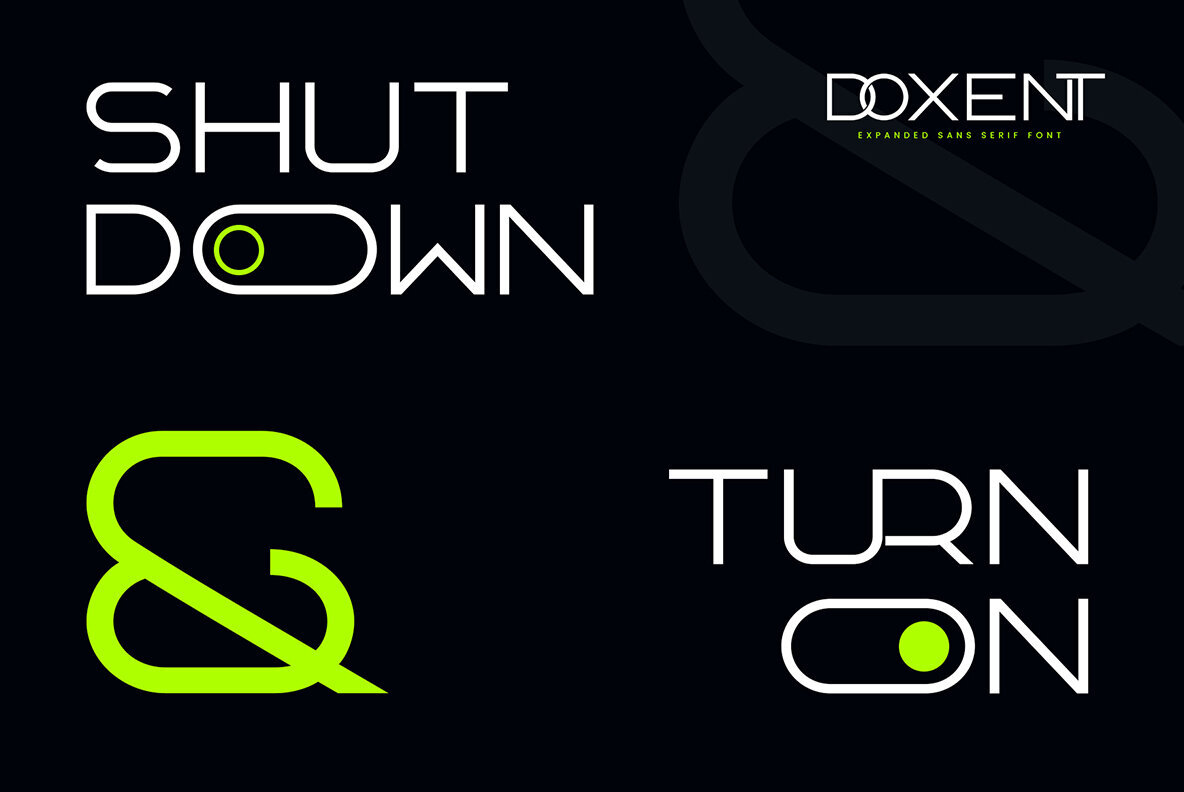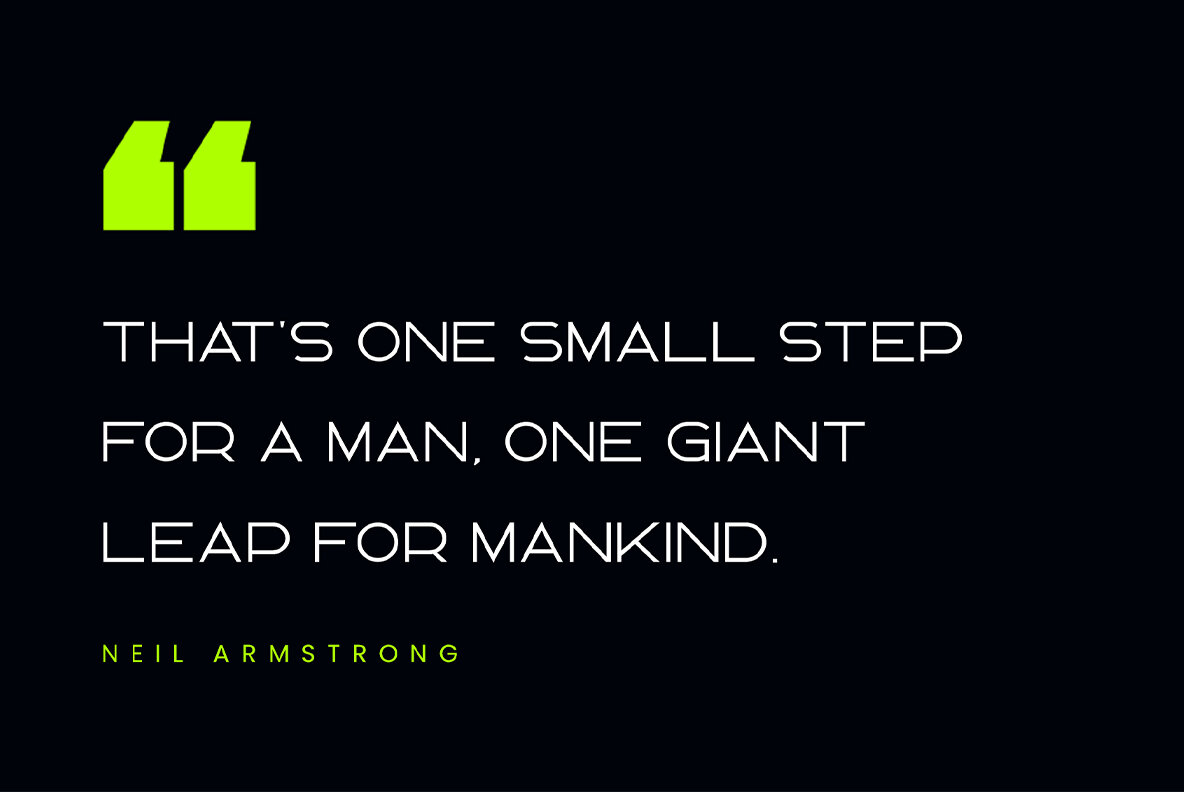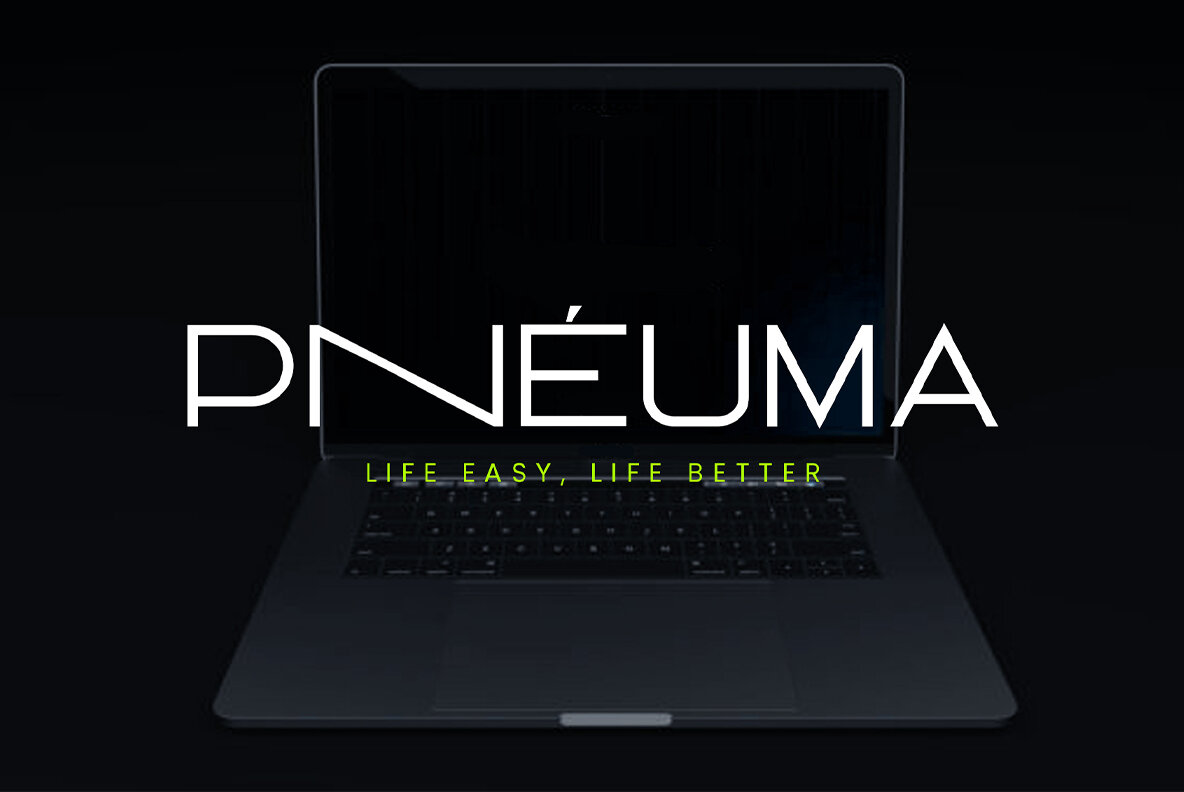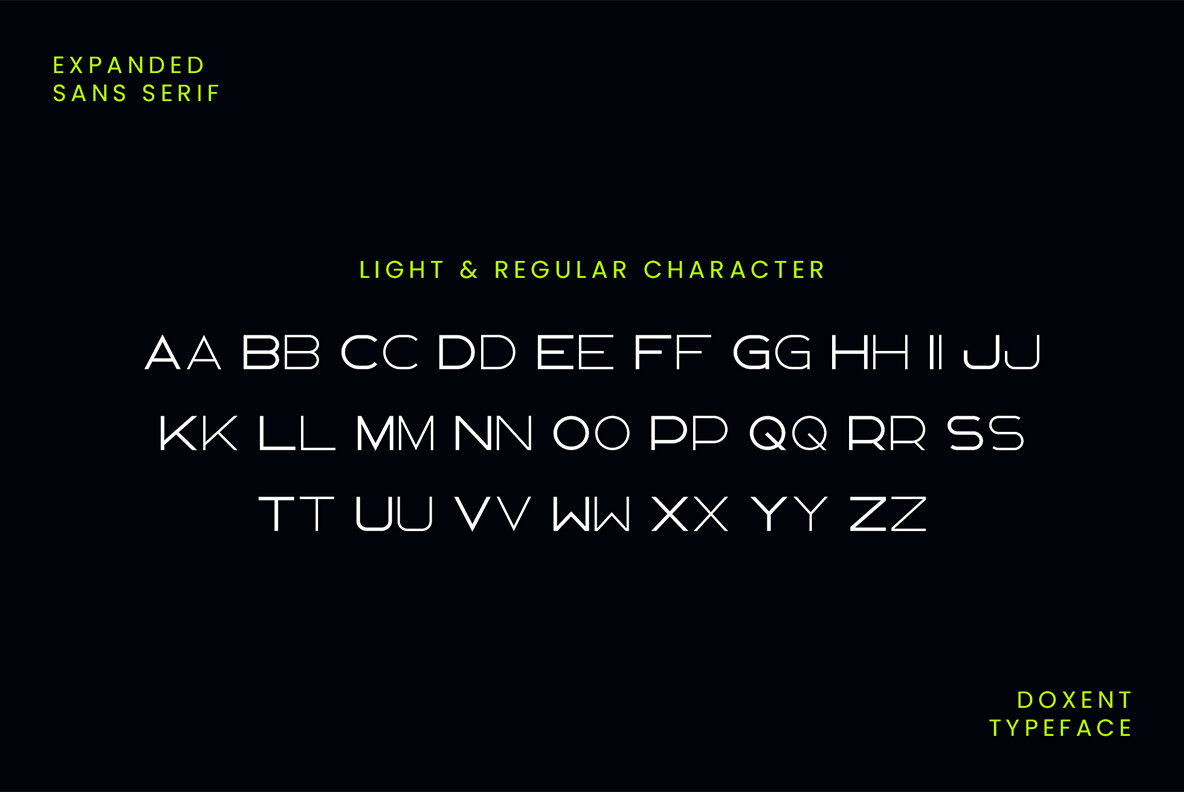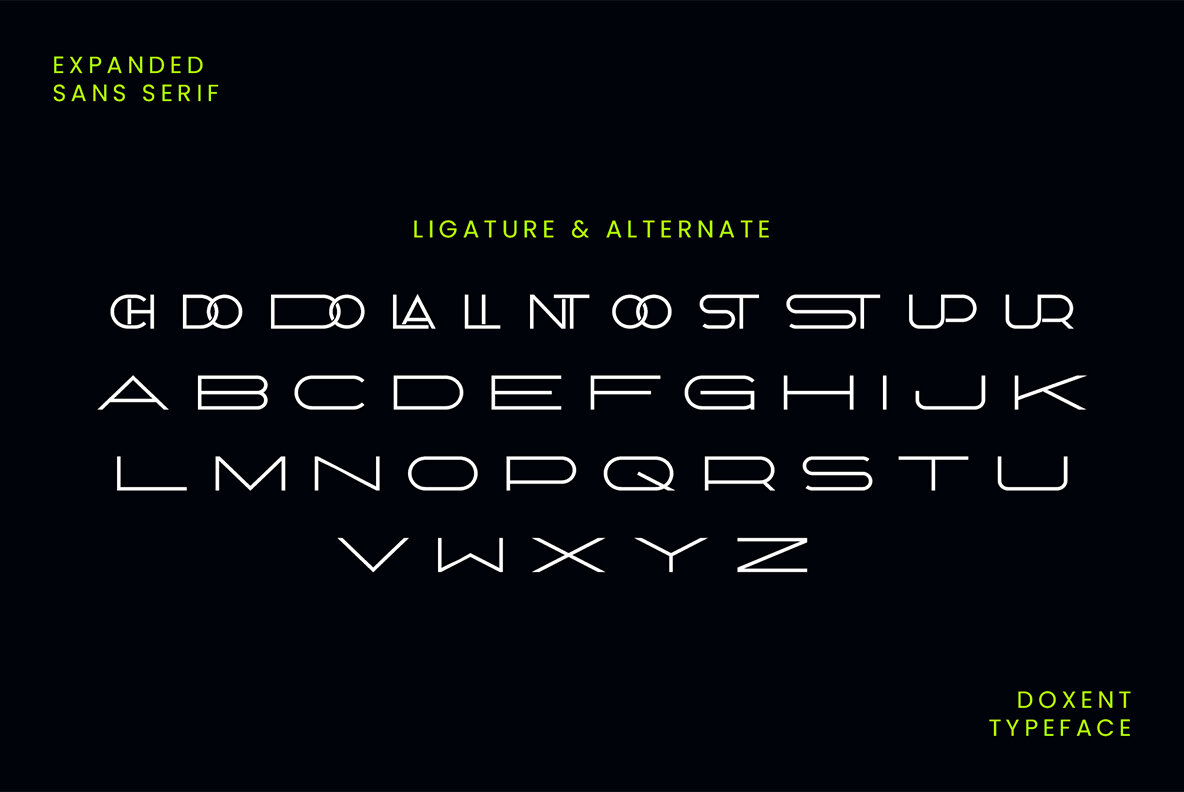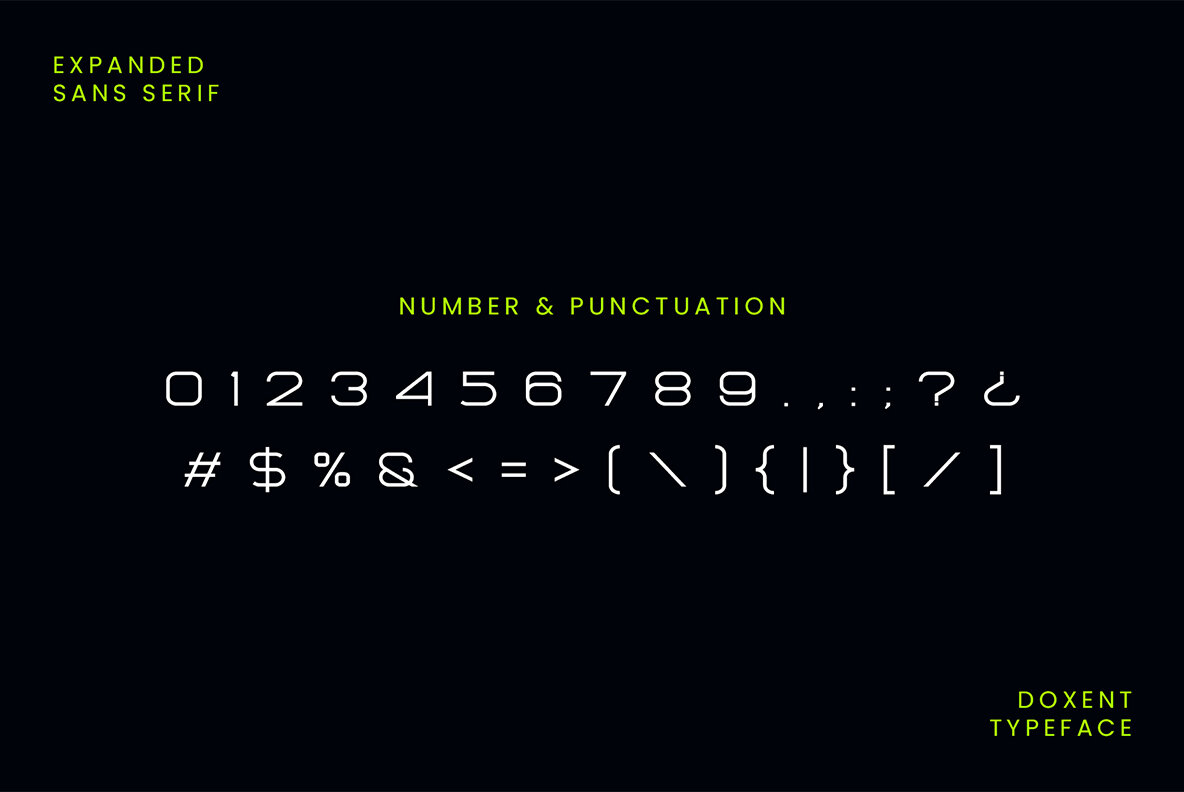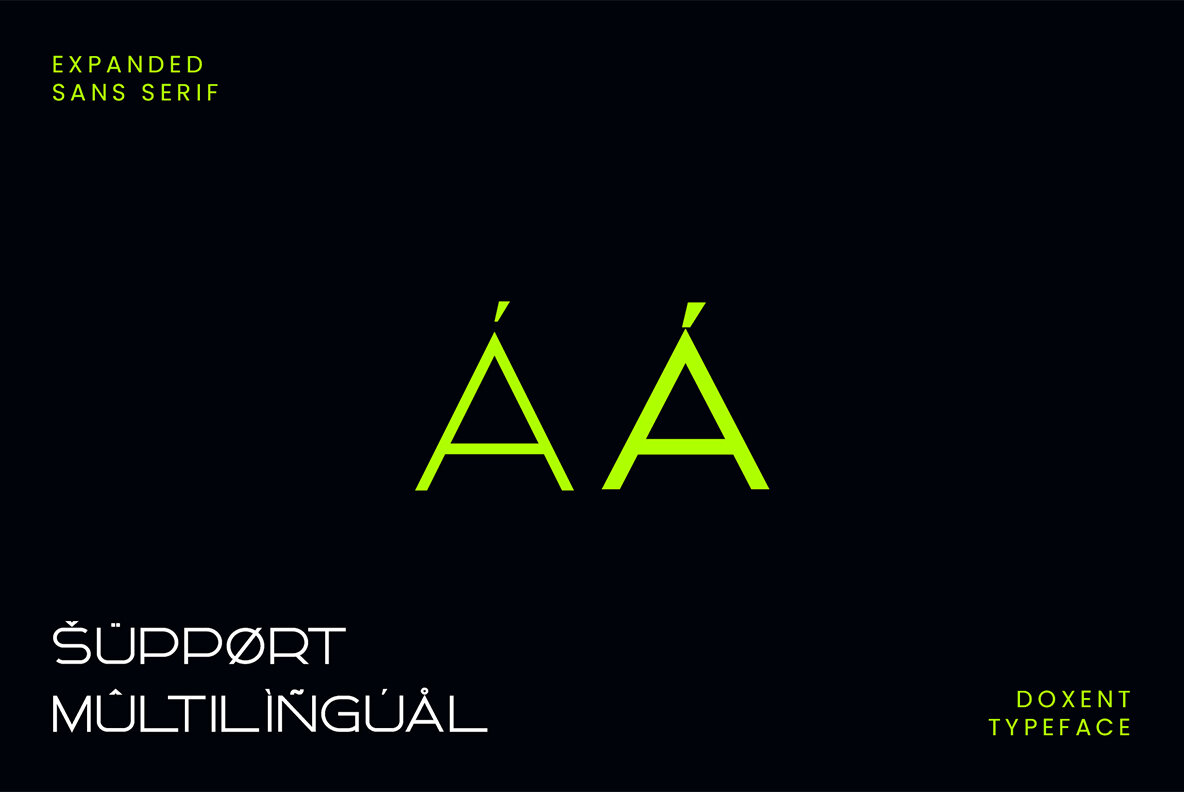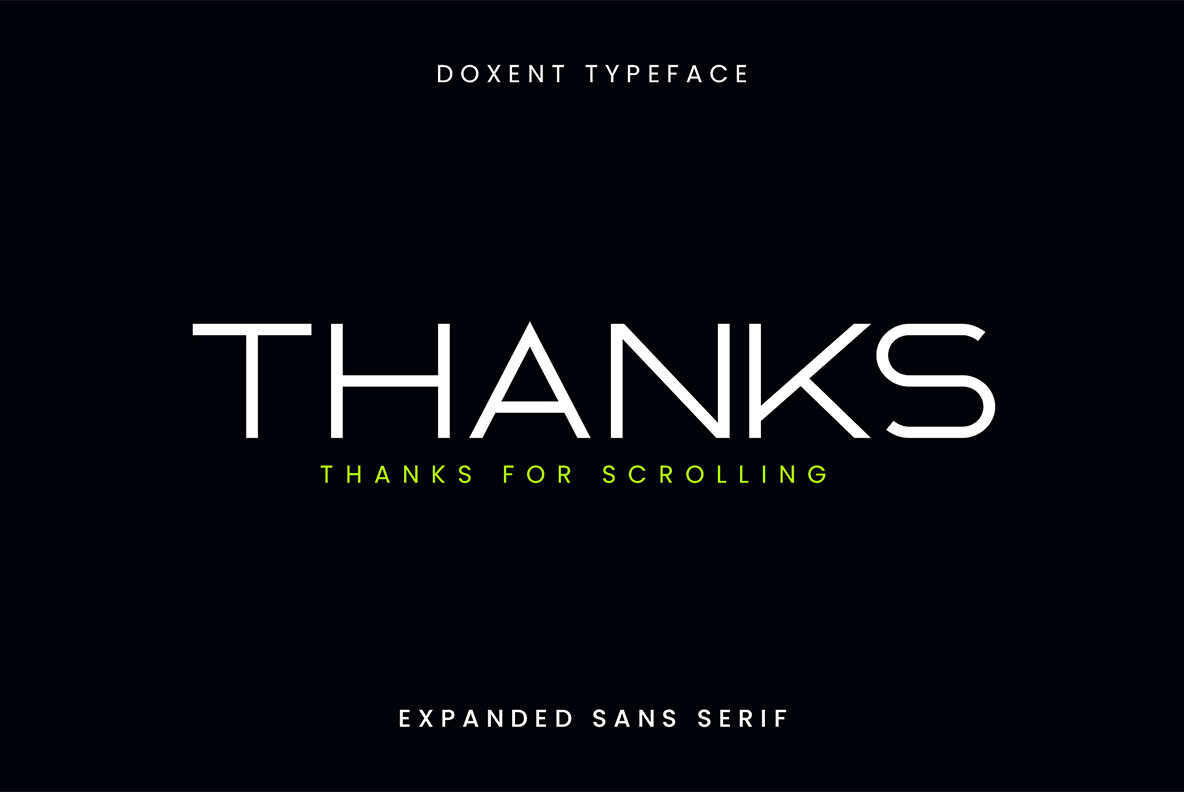
Doxent Font
Doxent Sans Serif gracefully combines balance, smoothness, and elegance in a sophisticated font design. Its charming character makes it an ideal choice for a range of design projects. This font seamlessly complements: Doxent Sans Serif exudes an air of sophistication and elegance through its:Doxent Sans Serif: Elegant and Stylish Typography